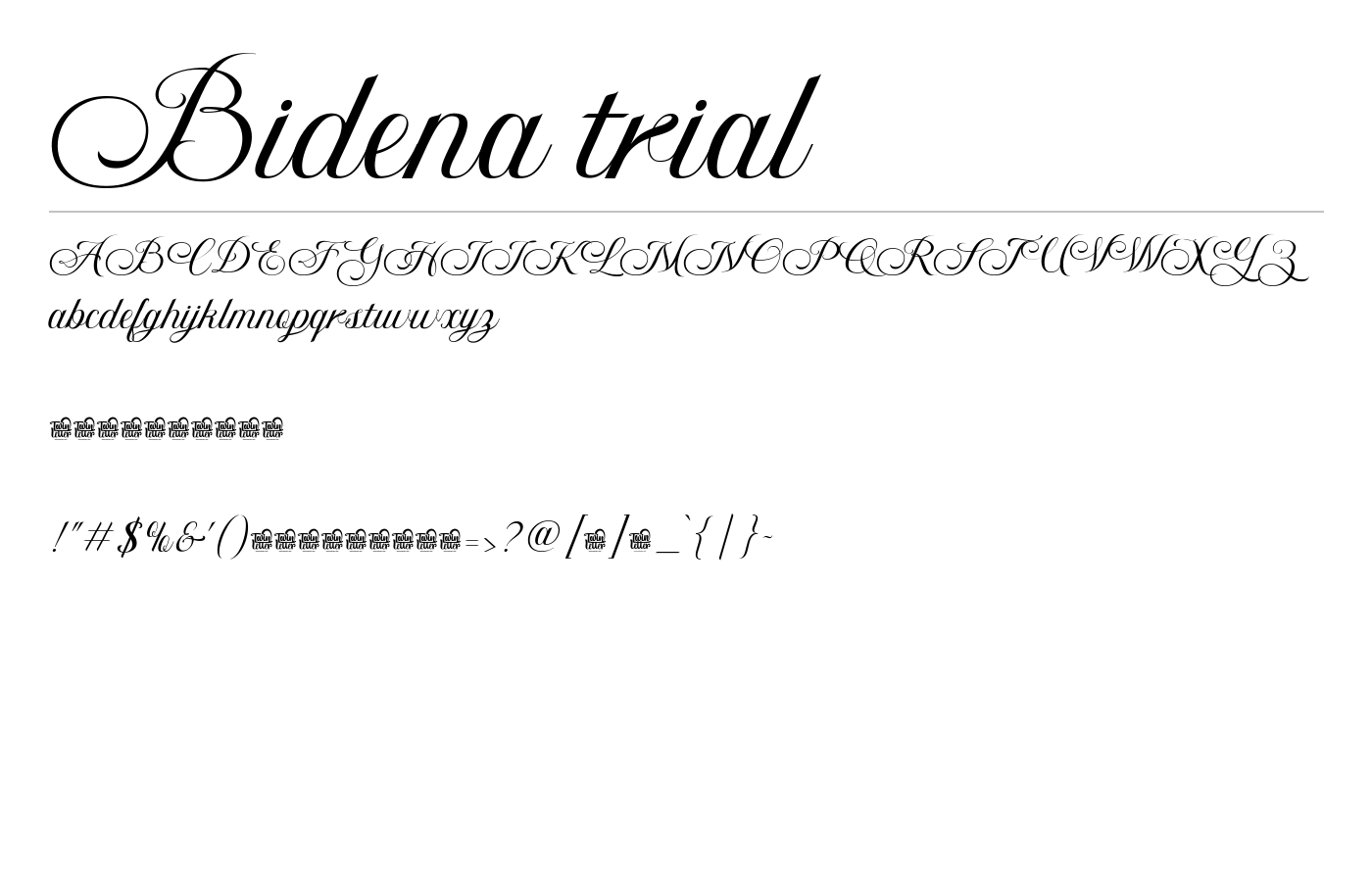
Bidena trial is an elegant, refined script font characterized by its delicate strokes and graceful flourishes, making it perfect for sophisticated and luxurious designs. Its high contrast between thick and thin lines, combined with smoothly flowing letterforms and stylish swashes, lends a timeless, classic feel ideal for invitations, branding, and upscale editorial use. This font brings a sense of delicacy and artistry that works beautifully for projects aiming to communicate elegance and refinement.
Bidena trial Font
About Bidena trial Font
| Font family | Bidena trial Font |
| Designer | Naya |